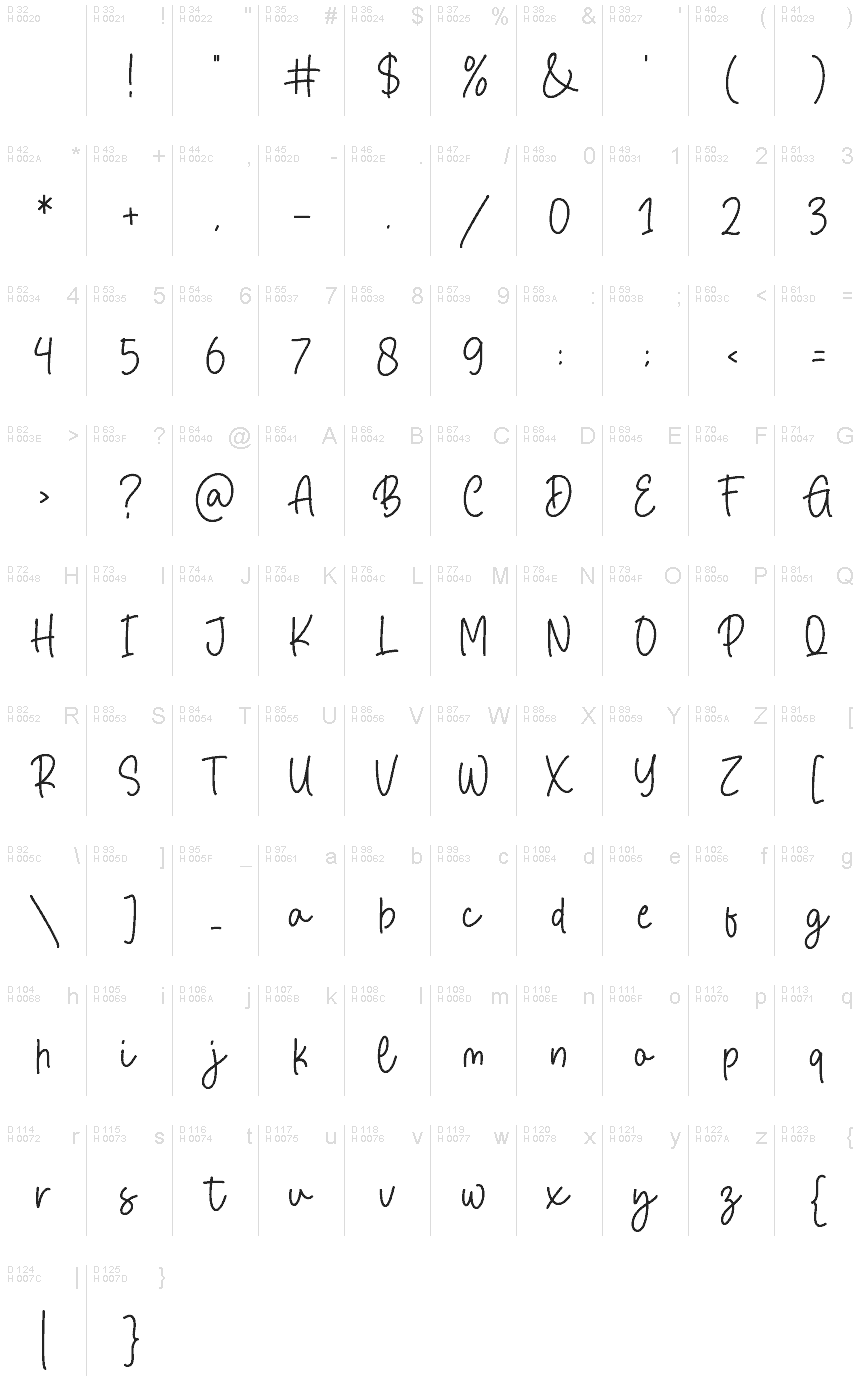
Rockfast
Rockfast font by Balpirick Studio is a free handwritten font that embodies both casual elegance and contemporary flair. The subtle charm of this font is in its curvaceous form and gentle connectives which together combine into an approachable yet sophisticated tone. Featuring an elegant and authentic style, Rockfast combines chosen approaches, styles, shapes, and forms.
Rockfast suits several design applications like wedding placards, apparel printing, video production for YouTube intro projects as well as websites. It can also be used simply as a stylish text overlay to any background image whether it’s social media content or business logo ideas.